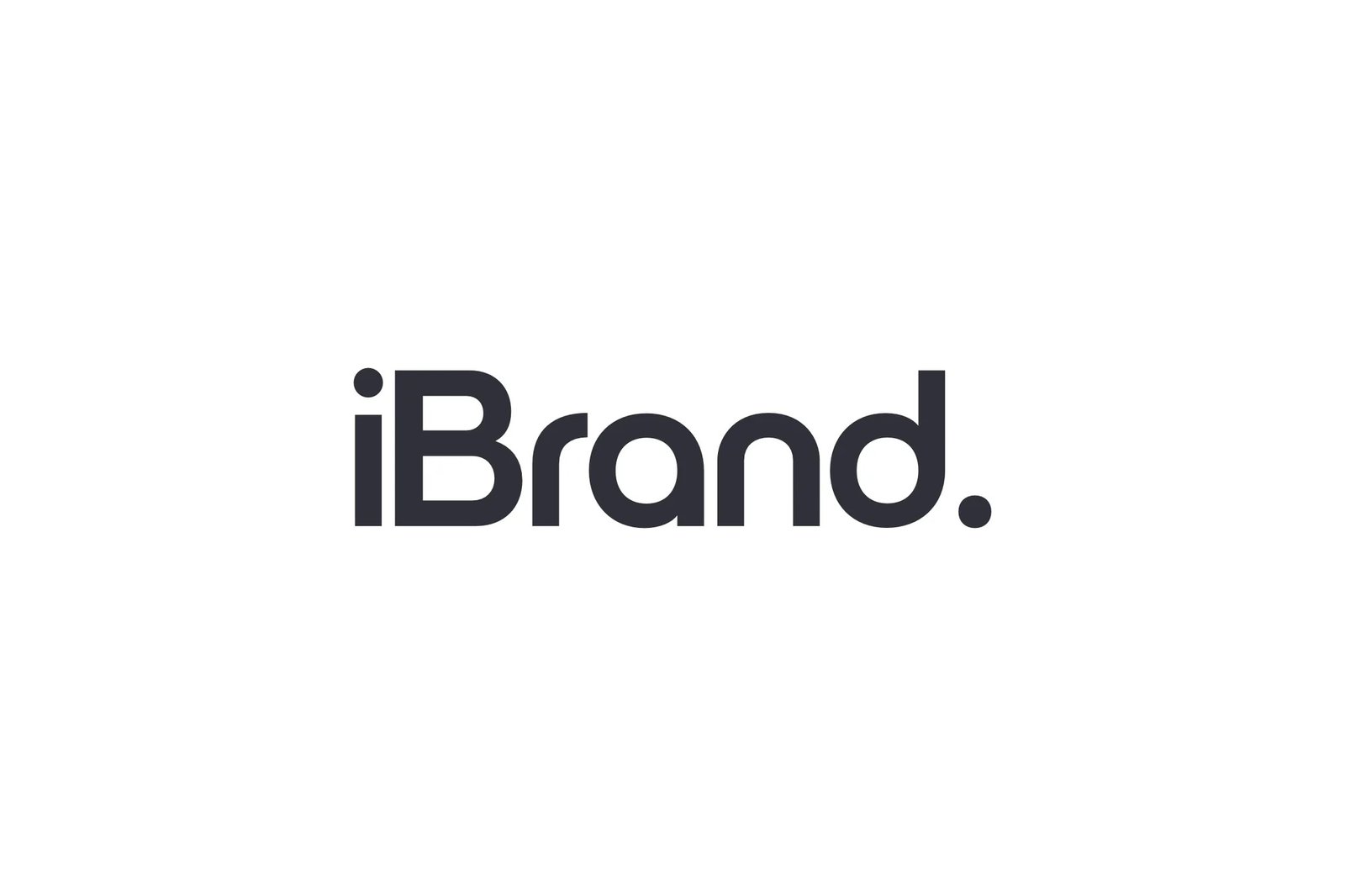
Vault Zxnova – iBrand Logo Typeface
iBrand is a meticulously crafted typeface from Vault Zxnova, designed specifically for logos, branding, headers, and titling. With precise kerning and spacing tailored for impactful visual designs, iBrand ensures your branding makes a lasting impression.
This font is not suitable for body text but excels in visual applications where detail and style are paramount. Elevate your design projects with the elegant and professional touch of iBrand.
Key Features
| Feature | Description |
|---|---|
| Specialized for Branding | Precise kerning and spacing ideal for logos and headers. |
| Visual Impact | Designed to enhance logos and visual identities. |
| Not for Body Text | Optimized for display use only. |
| Professional Craftsmanship | Meticulously designed to create lasting impressions. |
Use Vault Zxnova’s iBrand font to craft memorable and elegant branding with confidence.